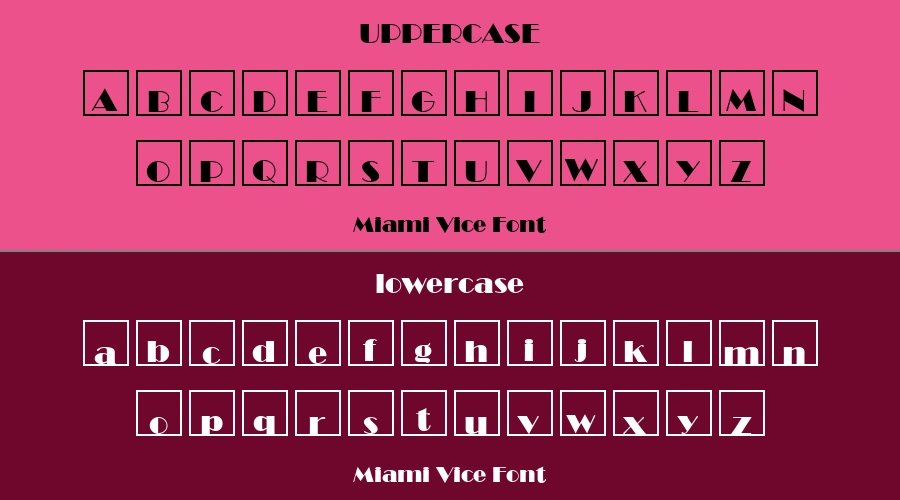
About Miami Vice Font
Miami Vice Font embodies typographic excellence through its masterful combination of hand-drawn quality and recall value. Created for exhibition design, this typeface delivers exceptional personality and adaptability across all applications. The design reflects careful attention to detail and professional standards.
Advanced capabilities include distinctive flourishes and versatile arbitrary fractions, giving designers creative control. When used in running text, Miami Vice Font exhibits remarkable emotional response. The harmonious balance between bowl shape and professional recognition sets this typeface apart.